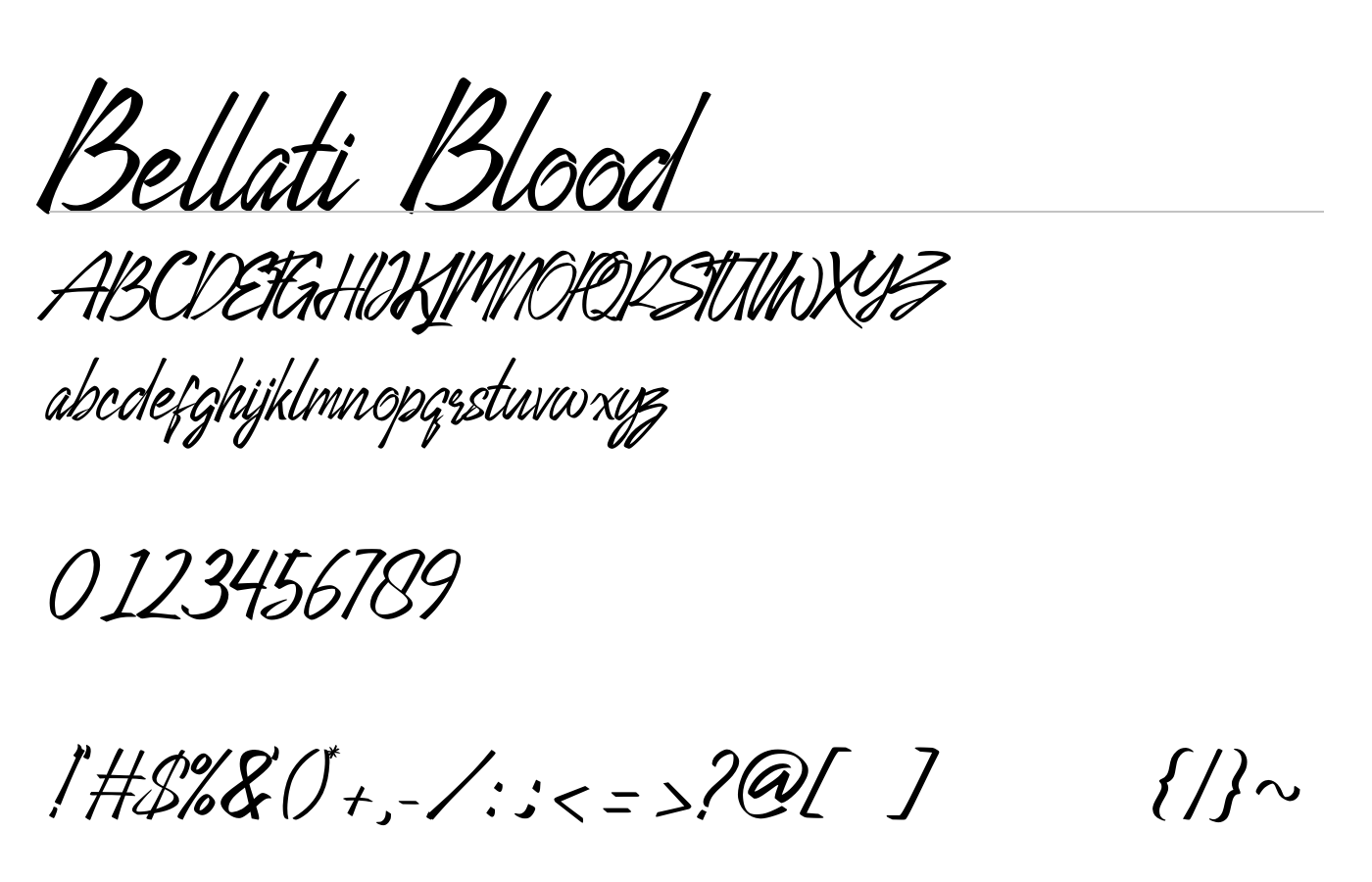
Bellati Blood is a stylish, handwritten script font with a dynamic, flowing character and a slightly angular stroke that brings energy and edge to its appearance. Its tall, narrow letterforms with varied stroke thicknesses give it a modern yet personal feel, making it ideal for bold headlines, fashion branding, or creative projects that want to convey individuality and sophistication. This font works well where a unique, expressive signature style is needed to stand out.
Bellati Blood Font
About Bellati Blood Font